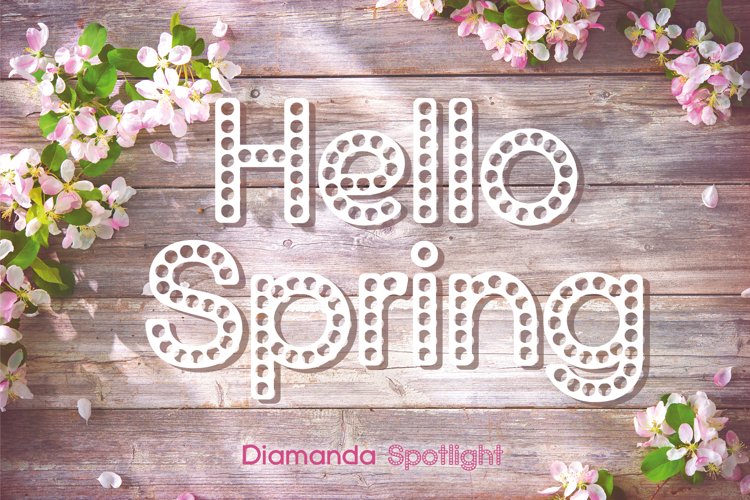
Diamanda Spotlight is a cool display font with little holes in it, part of the Diamanda Font Family, and goes perfectly with Diamanda Bold.
This retro-style font is perfect for anything from cards, posters, leaflet to t-shirts and comes in OTF and TTF formats. Cuts great on the Cricut Maker.